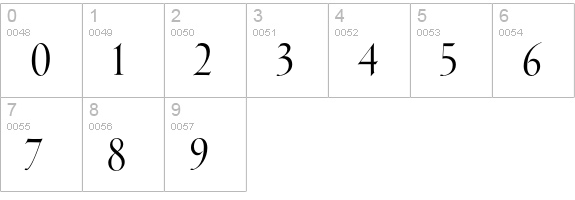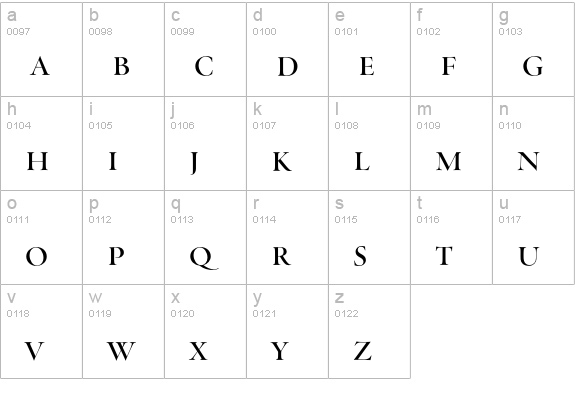
ThrohandRegular-RomanExpert Font Details
ThrohandRegular-RomanExpert font is a stunning typeface designed with precision and elegance. It exudes a sense of professionalism and sophistication, making it perfect for a wide range of design projects. The clean lines and well-balanced letterforms of this font make it highly readable and versatile. This font boasts expertly crafted letterforms that effortlessly blend classic and contemporary design elements. Its timeless appeal makes it suitable for a variety of design applications, including branding, advertising, editorial design, and more. ThrohandRegular-RomanExpert font is not only visually appealing but also highly functional. It offers a wide range of weights and styles, allowing designers to create dynamic and visually engaging compositions. Whether you're looking to add a touch of elegance to a logo or create eye-catching headlines, this font has you covered. One of the best things about ThrohandRegular-RomanExpert font is that it is freely available to download at FontsMarket.com. This means that you can access this exceptional typeface without any cost or restrictions. It is a fantastic opportunity for designers and individuals alike to enhance their projects with a high-quality font that exudes professionalism and style. So, why wait? Take advantage of the free availability of ThrohandRegular-RomanExpert font and elevate your designs to the next level. Download it today from FontsMarket.com and let your creativity flow with this beautiful and versatile typeface.